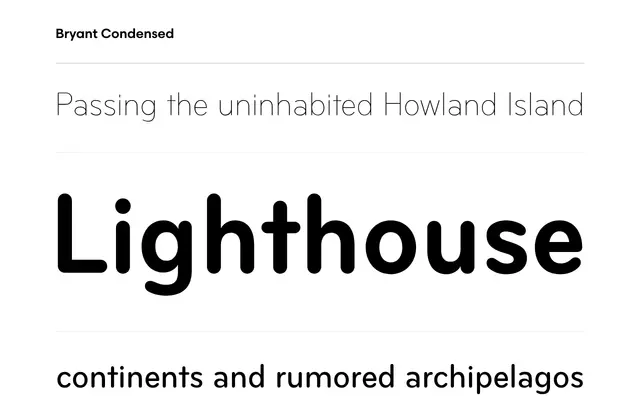
Bryant Condensed
Process Type Foundry · Eric Olson · 2005
A four-weight condensed companion to Bryant 2, sharing the same warm character in a narrower cut suited to display and medium text sizes.
Part of a three-width Bryant family alongside Bryant 2 and Bryant Compressed, this condensed cut keeps the approachable, rounded quality of the wider sibling while working across display and mid-text sizes. Four weights are available, with OpenType features including arrows and stylistic alternates. The name signals condensed proportions, though Eric Olson describes it as simply 'not too wide', making it more versatile than a tightly compressed display face.
Bryant Condensed shares the warm, rounded character of its sibling Bryant 2, placing it firmly in the humanist sans tradition despite its condensed proportions and display-friendly weight range.